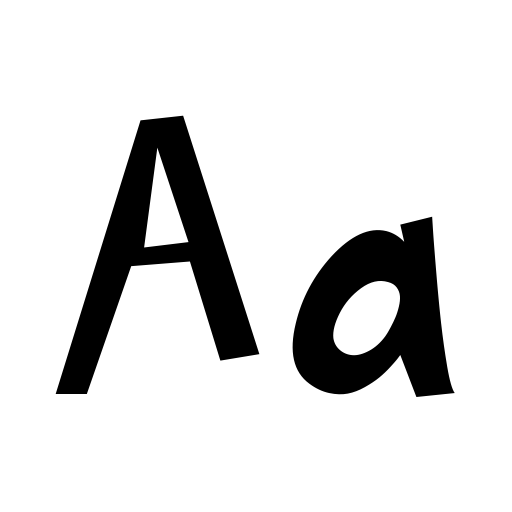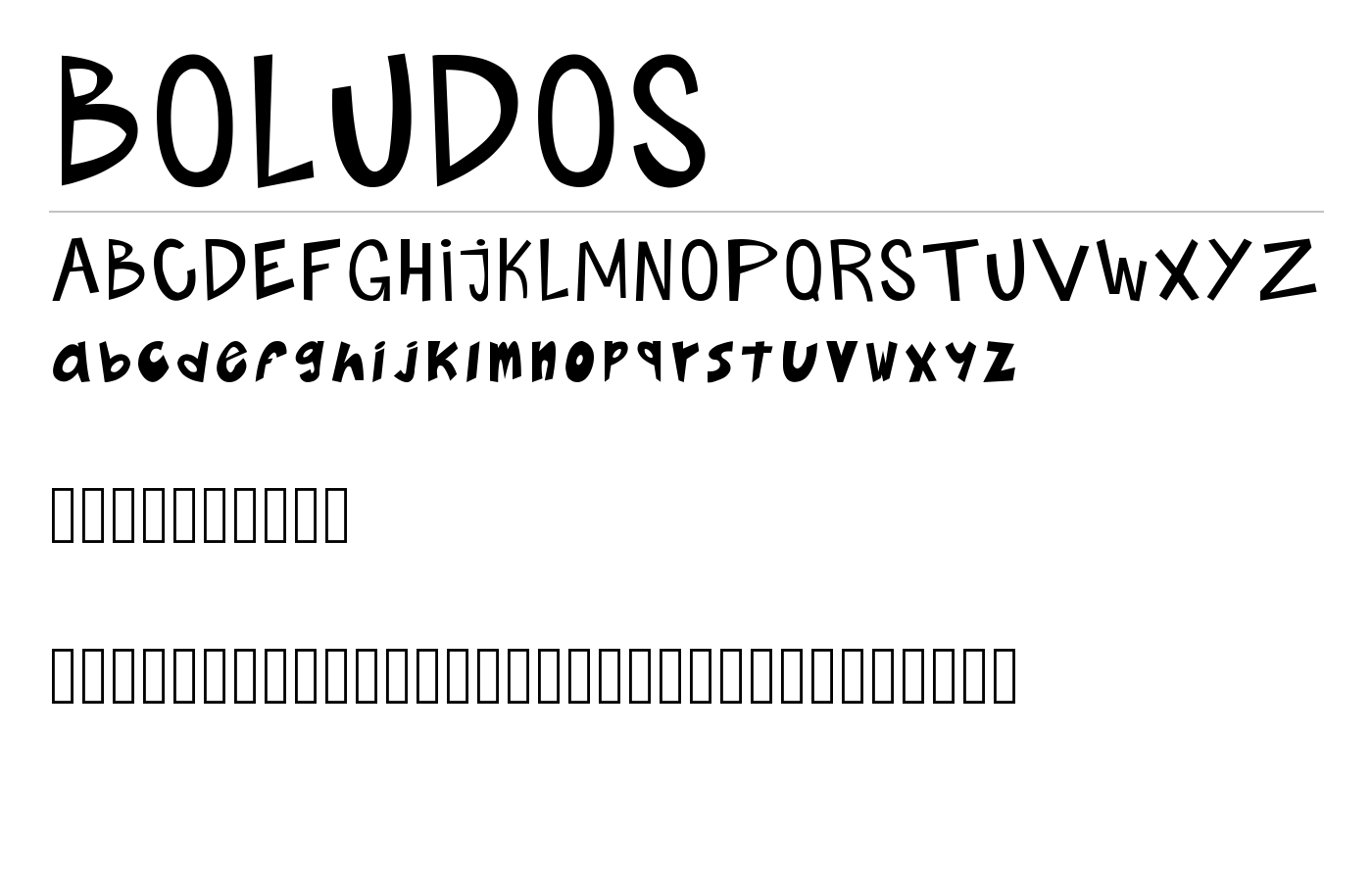
BOLUDOS is a playful, casual sans serif font with irregular, hand-drawn letterforms that give it a lively, informal feel. Its moderately bold weight and uneven strokes make it ideal for fun, eye-catching designs like posters, children's books, or creative branding where a friendly, approachable personality is desired. This font shines best in headlines or short text, adding a unique, whimsical touch without sacrificing readability.
BOLUDOS Font